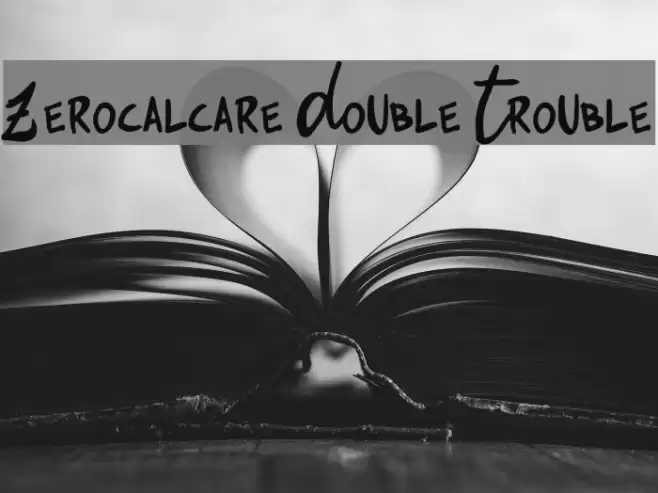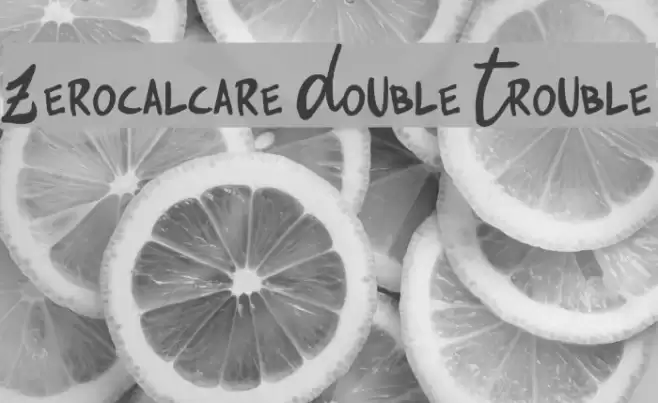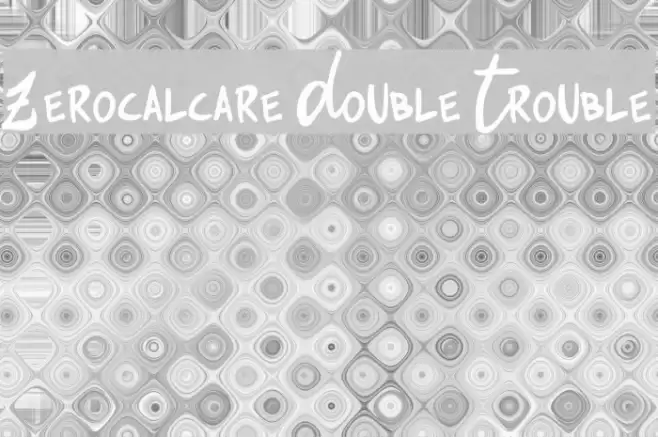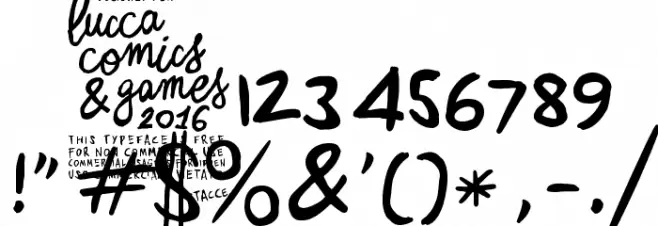
Zerocalcare Double Trouble Font
Zerocalcare Double Trouble Description
This font features a playful and dynamic handwritten style, characterized by its bold and expressive strokes. The uppercase letters are slightly irregular, adding a casual and informal touch, while the lowercase letters flow with a cursive-like quality. The numbers and special characters maintain the same energetic and lively appearance, making the font suitable for creative and artistic projects. The overall design is reminiscent of comic book lettering, with a modern twist that captures attention and adds personality to any text.
A bold, playful handwritten font with a comic book flair from Handwritten fonts.
- Proposed Projects: Ideal for comic books, graphic novels, posters, and creative branding projects.